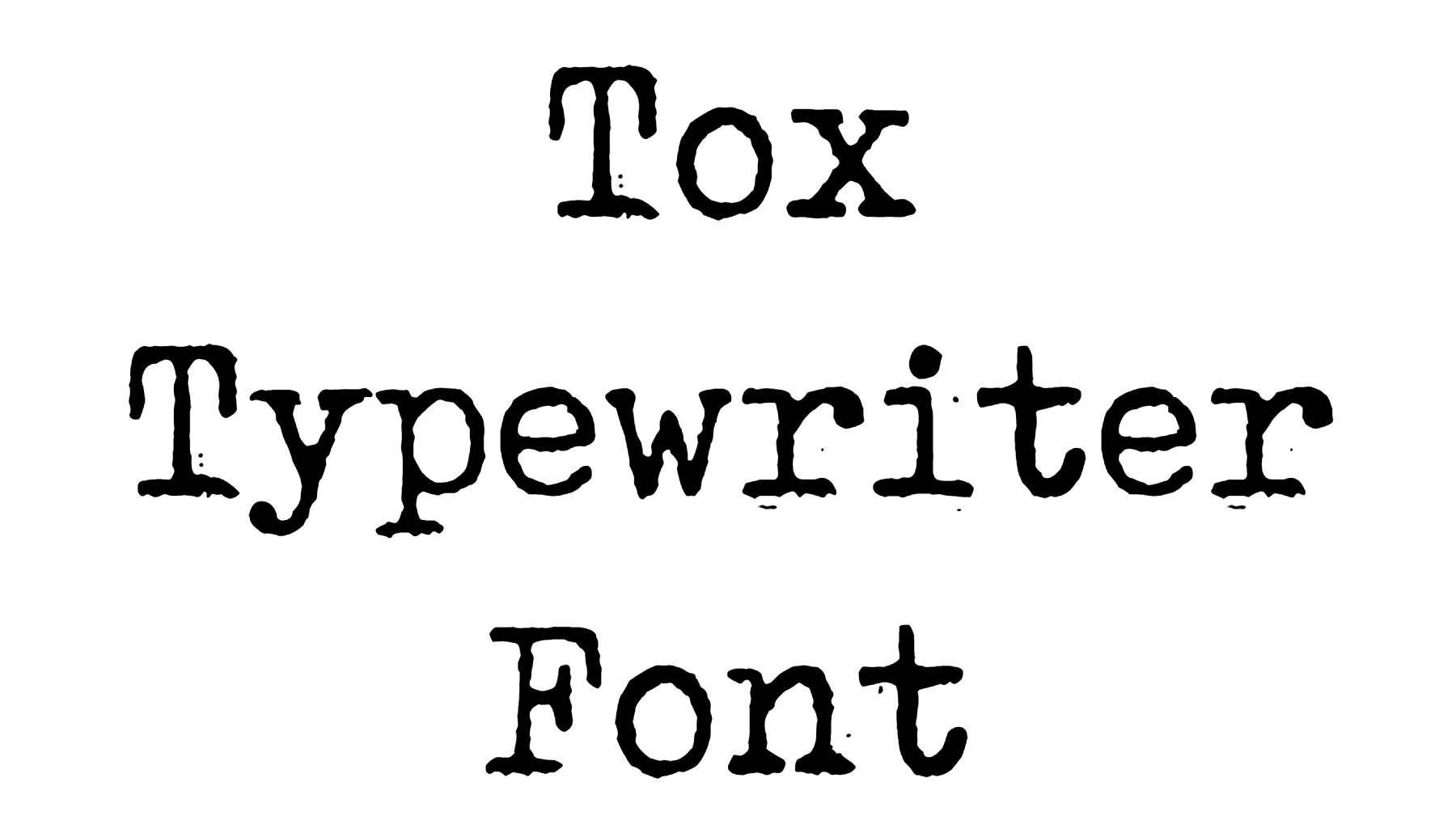
Tox Typewriter
Tox Typewriter is a typewriter font designed by junkohanhero and published by junkohanhero / junkohanhero.com (2016). Its letters have the evenly spaced, slightly worn look of real typewriter text. You can download it for free and test it with your own words in the preview above.
- Category: Typewriter font
- Languages: English, Spanish and Italian
You get every letter from A to Z in both cases and all the numbers from 0 to 9, which means Tox Typewriter can handle full sentences, dates and prices. Common punctuation such as &, !, ? and @ is included as well. It also has the accented letters you need for Spanish and Italian.
Tox Typewriter is a natural fit for vintage letters, screenplay titles and old-paper designs. The file has no kerning data, so in logos and big titles check pairs like AV, To and Wa and tighten the spacing by hand. It's one of the few decorative styles that also works for longer text, like a letter, a poem or a screenplay-style quote.
Yes. Tox Typewriter includes the accented letters needed for Spanish and Italian, so it works for more than just English.
Pair it with a bold serif headline for a classic vintage-document look.